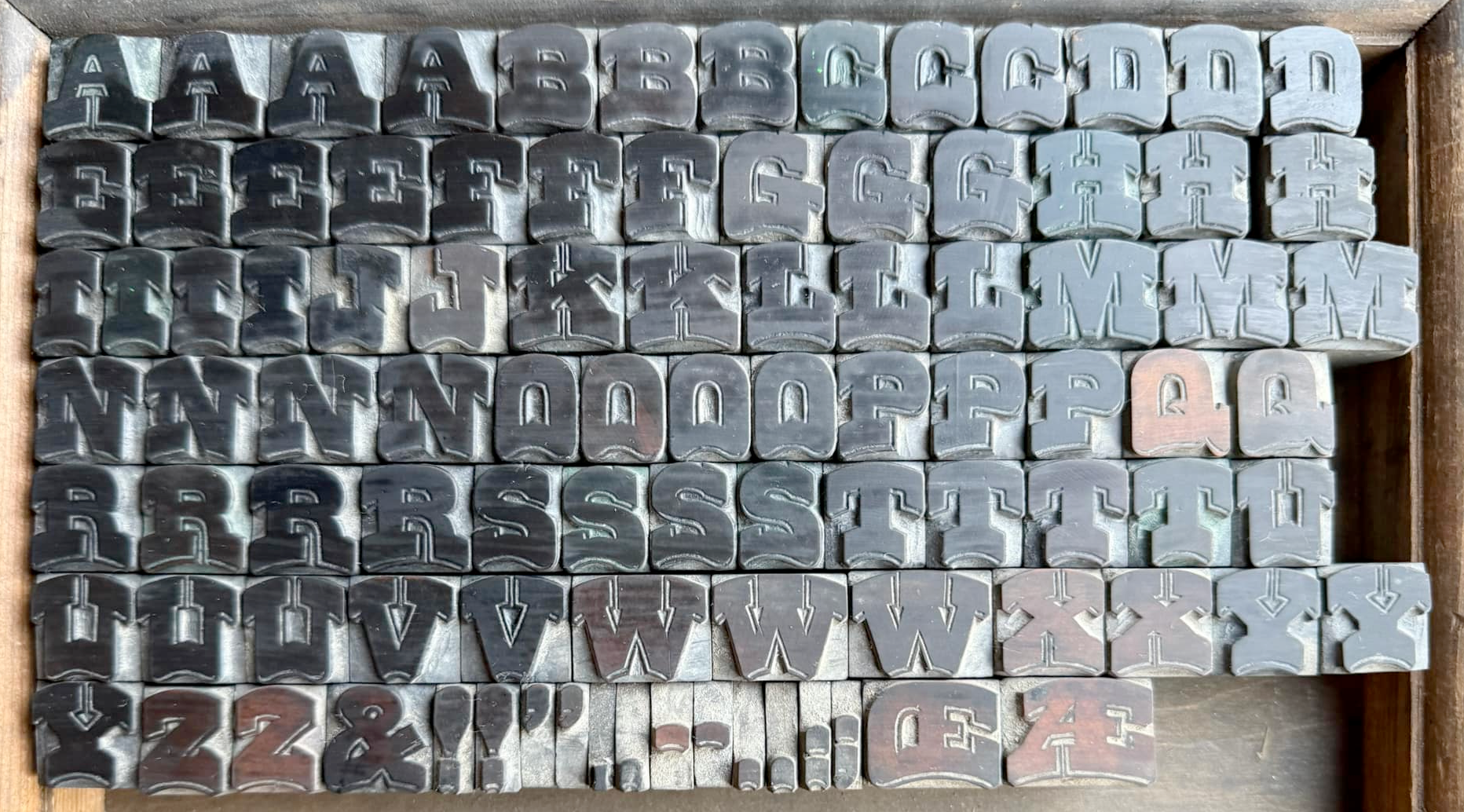
Antique Wood Type
A printer has this in his shop but doesn't have a name for it. I went through the wood type resource material I have which is primarily American (and somewhat limited) but was unable to help him. Hoping someone here might be able to.
As Kevin said, the image is reversed.
Also, since the first post I have been told by the printer he is reasonably certain the type is British but he still doesn't know the name. All of the wood specimen books for the UK that I knew of have disappeared from online since type.org shut down.